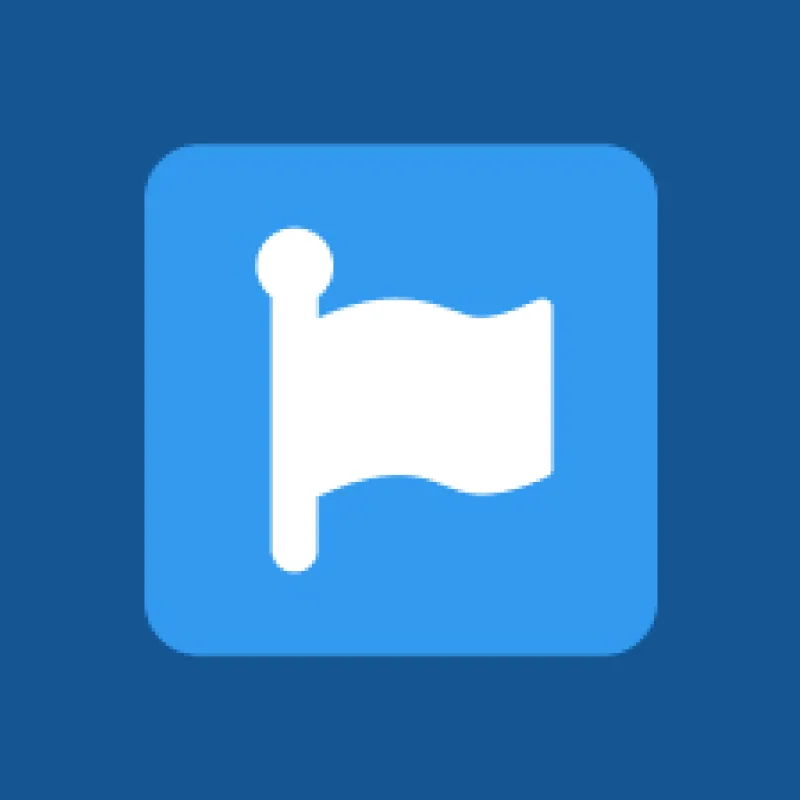
Font Awesome is one of the most widely used icon libraries, offering thousands of scalable vector icons for web, mobile, and UI design. It supports multiple styles such as solid, regular, light, and brands, making it highly flexible for different design systems. The library is easy to integrate with HTML, CSS, and popular frontend frameworks like React and Vue.